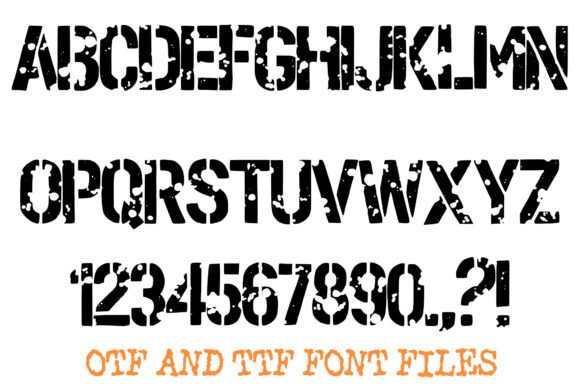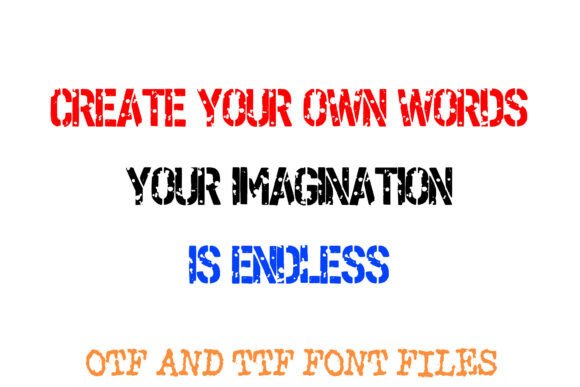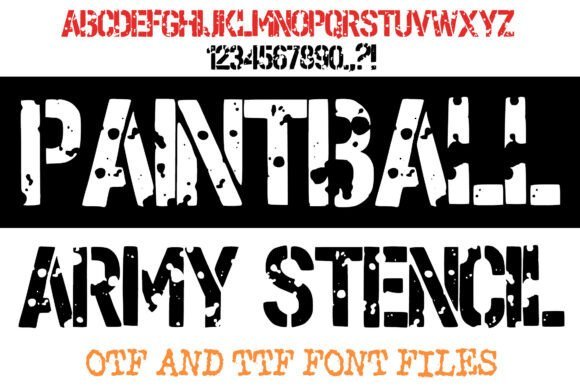
Introduction to Paintball Army Stencil Font
Paintball Army Stencil Font is a bold, rugged, and distressed stencil typeface that combines military precision with grunge-style paint splatter effects.
Inspired by army lettering and street art, this font is perfect for combat designs, tactical posters, paintball branding, survival games, army t-shirts, urban graffiti, and camouflage-style projects The rough texture and spray-paint effect give this font a realistic, battle-worn look that’s ideal for both print and digital use.
Key Features of Paintball Army Stencil Font
Why Choose Paintball Army Stencil Font?
Paintball Army Stencil Font offers exceptional quality and versatility, making it a valuable addition to your design toolkit. Whether you’re creating for personal projects or commercial use, Paintball Army Stencil Font delivers professional results.